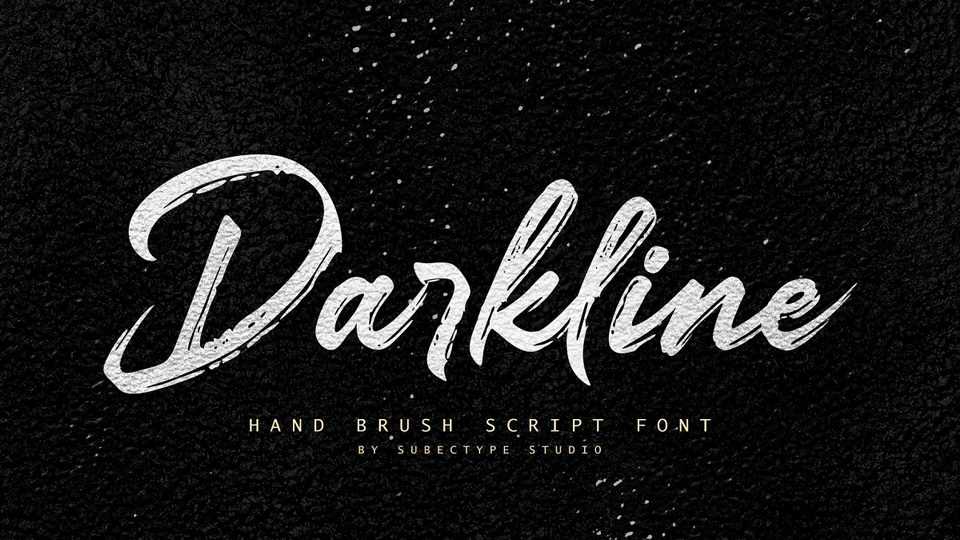
Download Darkline font, a brush script, dapper handwritten typeface with a personal charm. With quick dry strokes and a signature style, Darkline is perfect for branding projects, homeware designs, product packaging and more.
Designer: Subectype